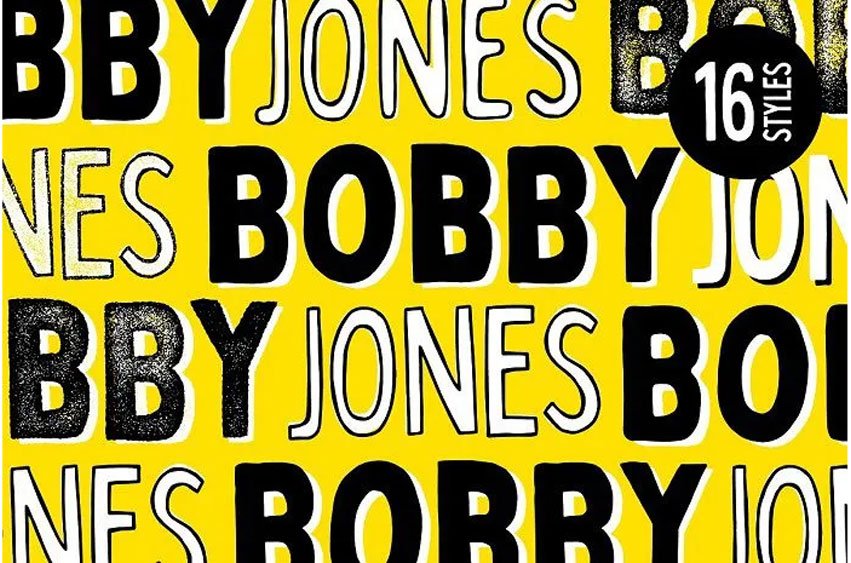
Bobby Jones Font Typeface; a captivating display font that is loaded with amusing, disturbing and fascinating qualities. The 16 handcrafted fonts included in the set are full of character – just what you need to create fun designs!